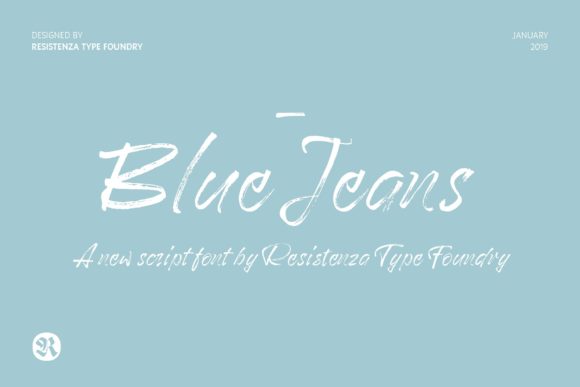
The Blue Jeans Font: A Casual and Quirky Brush Script for Designers
I’ll never forget the design project that led me to discover the Blue Jeans font. I was working on a branding project for a trendy new coffee shop, and I needed a font that would capture their laid-back, yet stylish vibe. As I scrolled through font after font, nothing seemed quite right – until I stumbled upon Blue Jeans. Its casual, handwritten feel was perfect for the job, and I knew I’d found the one.
An Honest Review of Blue Jeans Font
• 💫 The casual, quickly written brush script style gives my designs a relaxed, effortless feel.
• ✅ Two sets of lower cases provide variation and a more natural look to my texts.
• 🎉 A bunch of stylistic alternates are available, making my texts and designs even more appealing.
• ⚠️ Some users might find the font a bit too casual or informal for certain projects.
• 🤔 The font’s legibility can be affected if it’s used at very small sizes or in certain color combinations.
The Designer’s Inspiration Behind Blue Jeans
While there’s no official backstory on the Blue Jeans font, it’s easy to imagine that the designer was inspired by the casual, laid-back vibe of a summer evening. Perhaps they were sipping iced coffee on a worn-out couch, surrounded by scraps of paper and half-finished design projects. The result is a font that feels like a warm hug – comforting, yet stylish.
Is Blue Jeans suitable for body text? While Blue Jeans is a beautiful font, it’s best suited for headlines, titles, or short paragraphs. Its legibility might be affected if used for long body text.